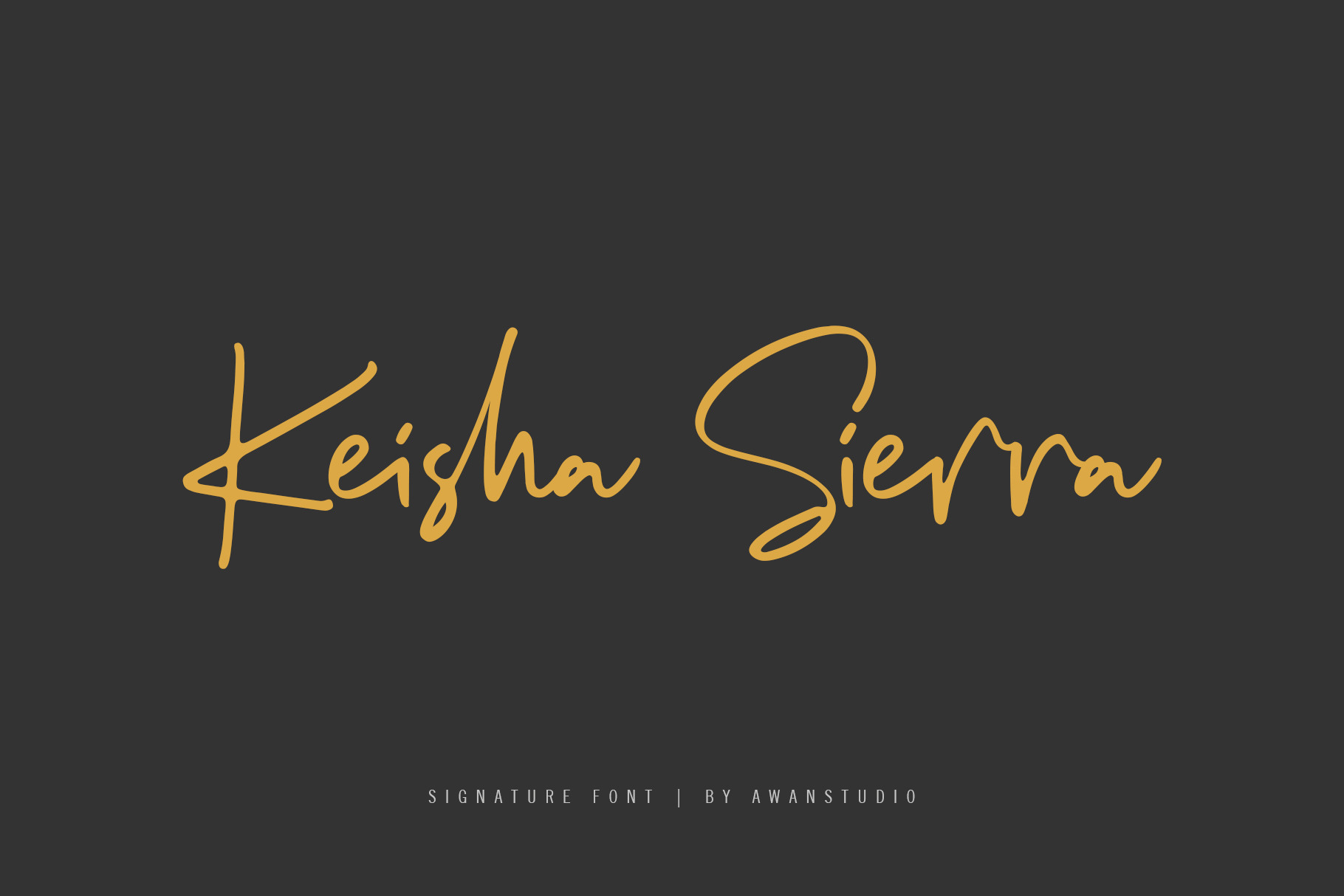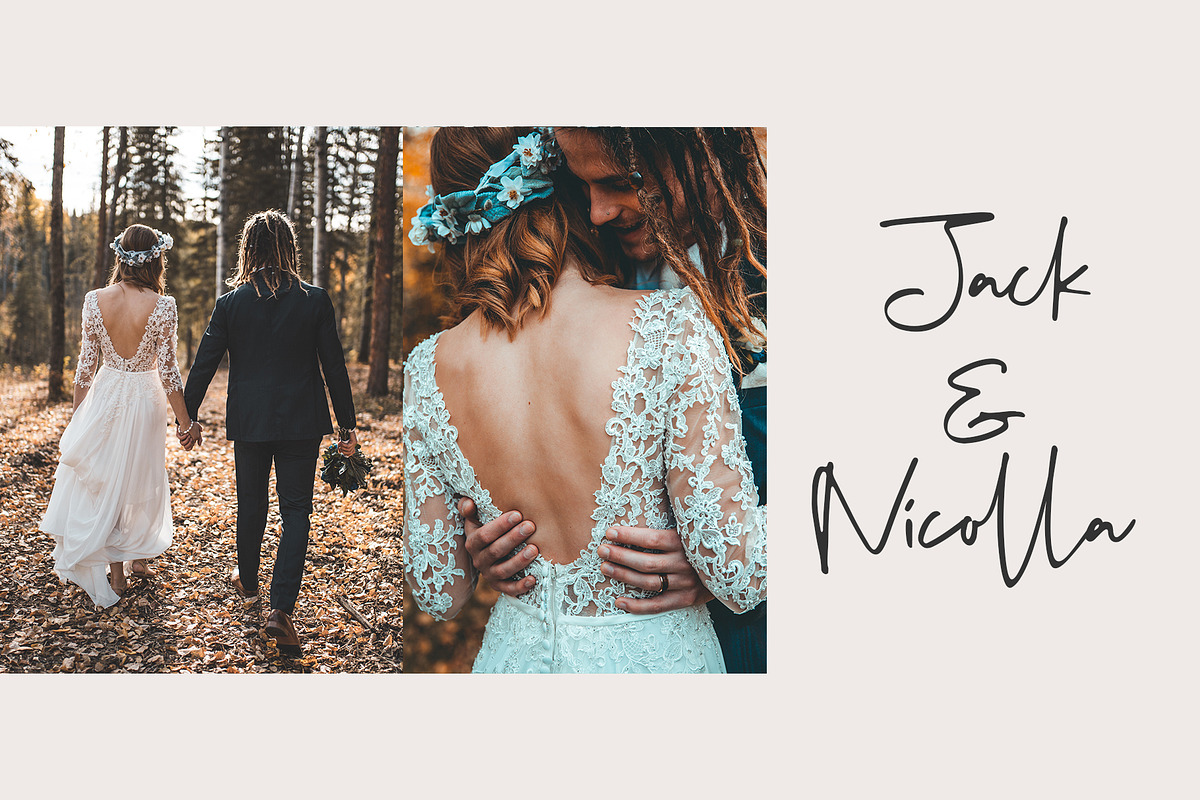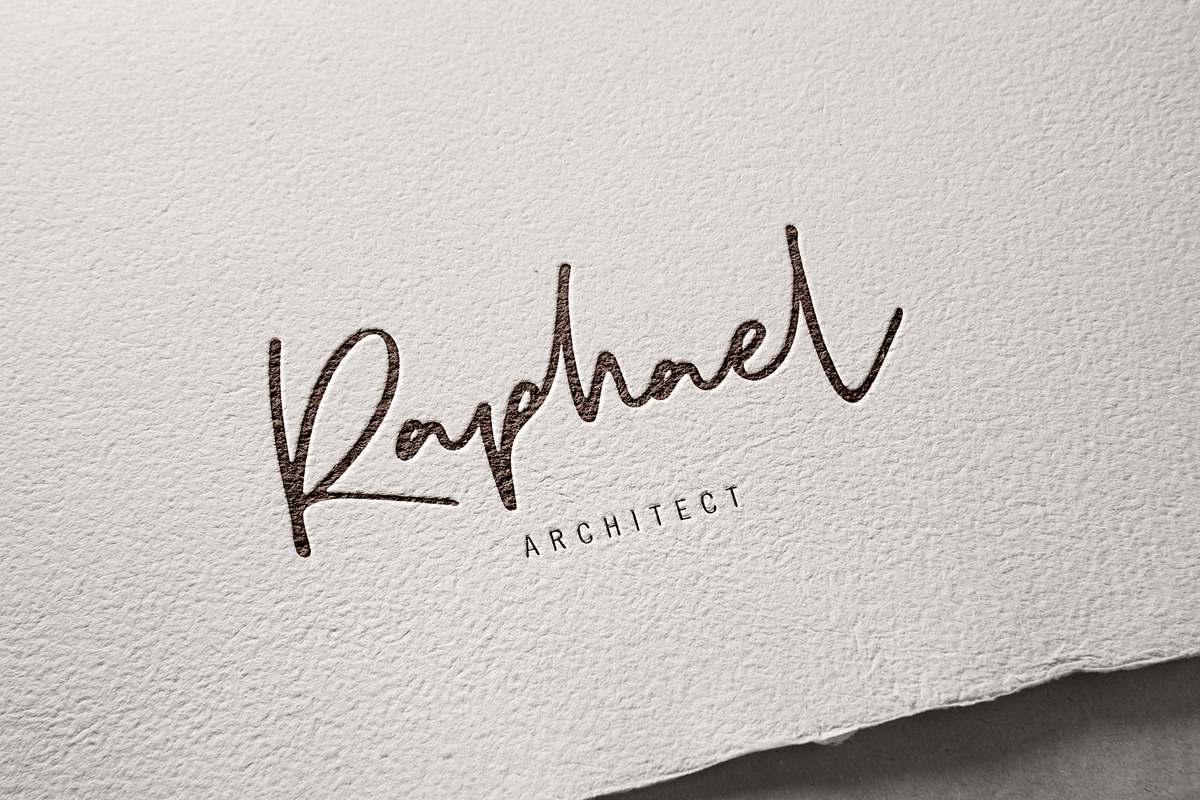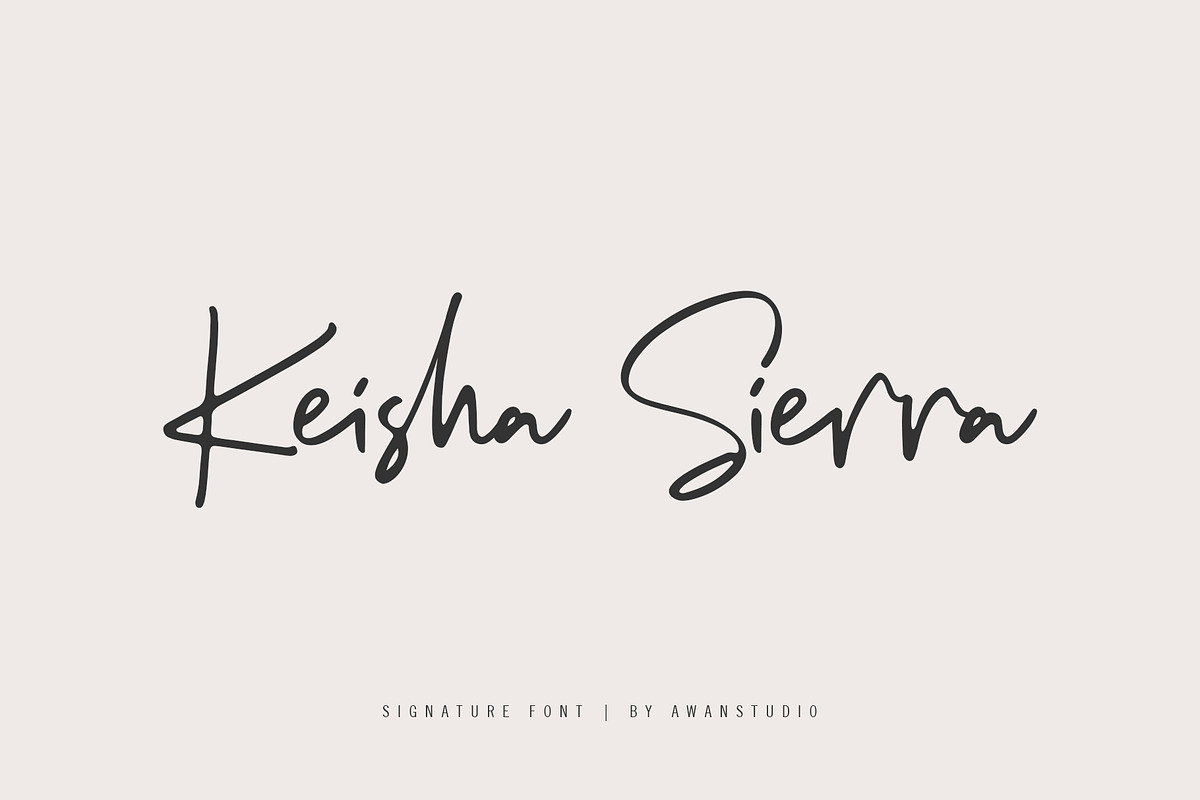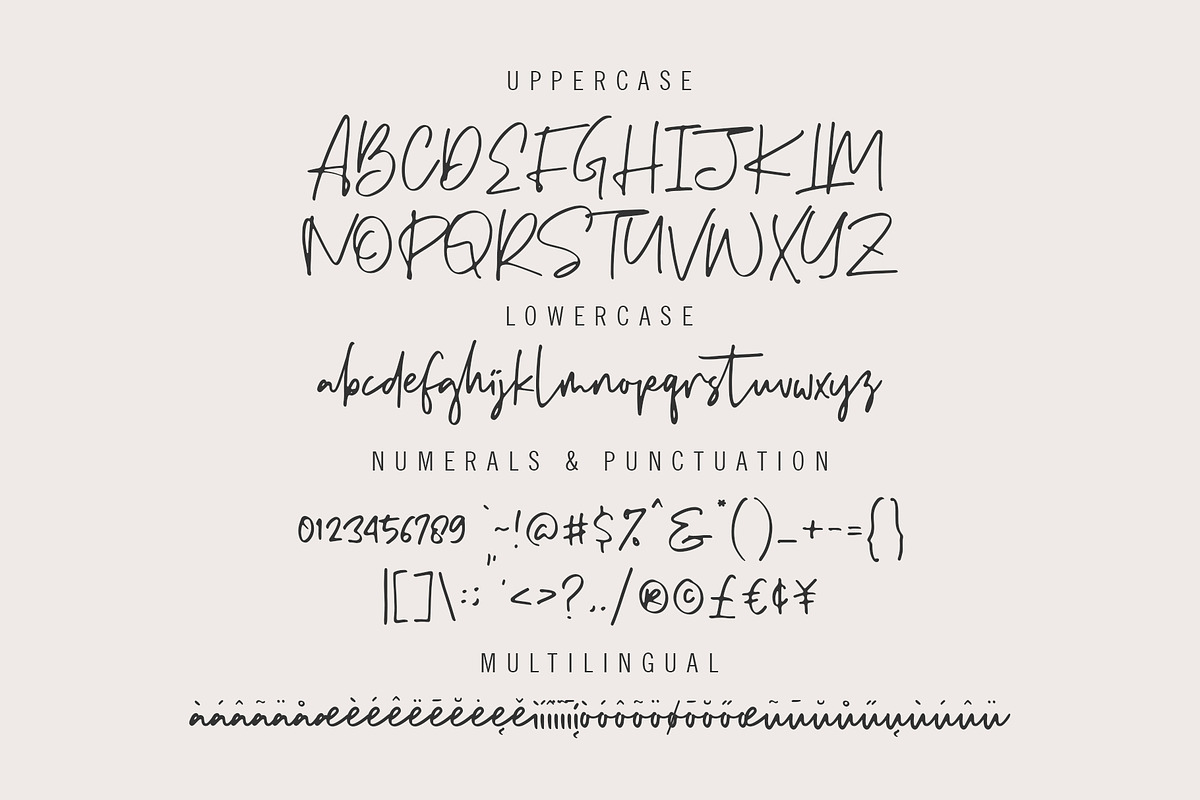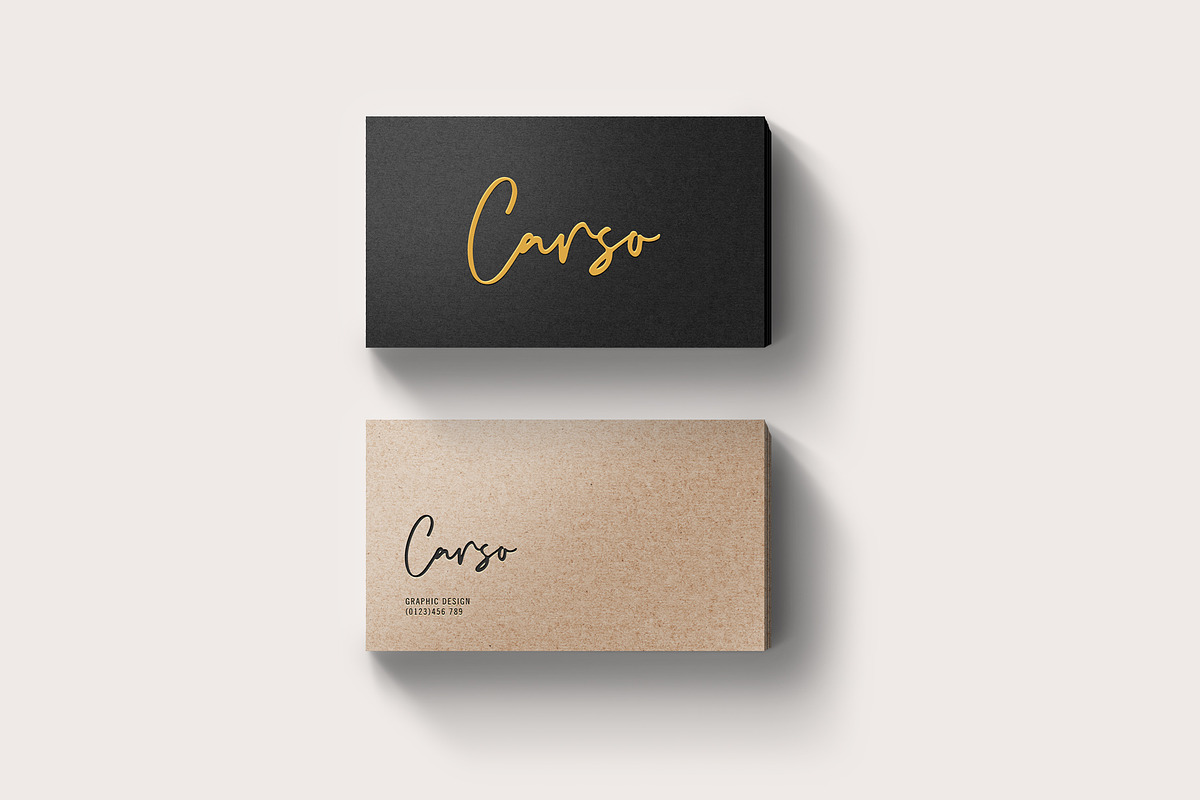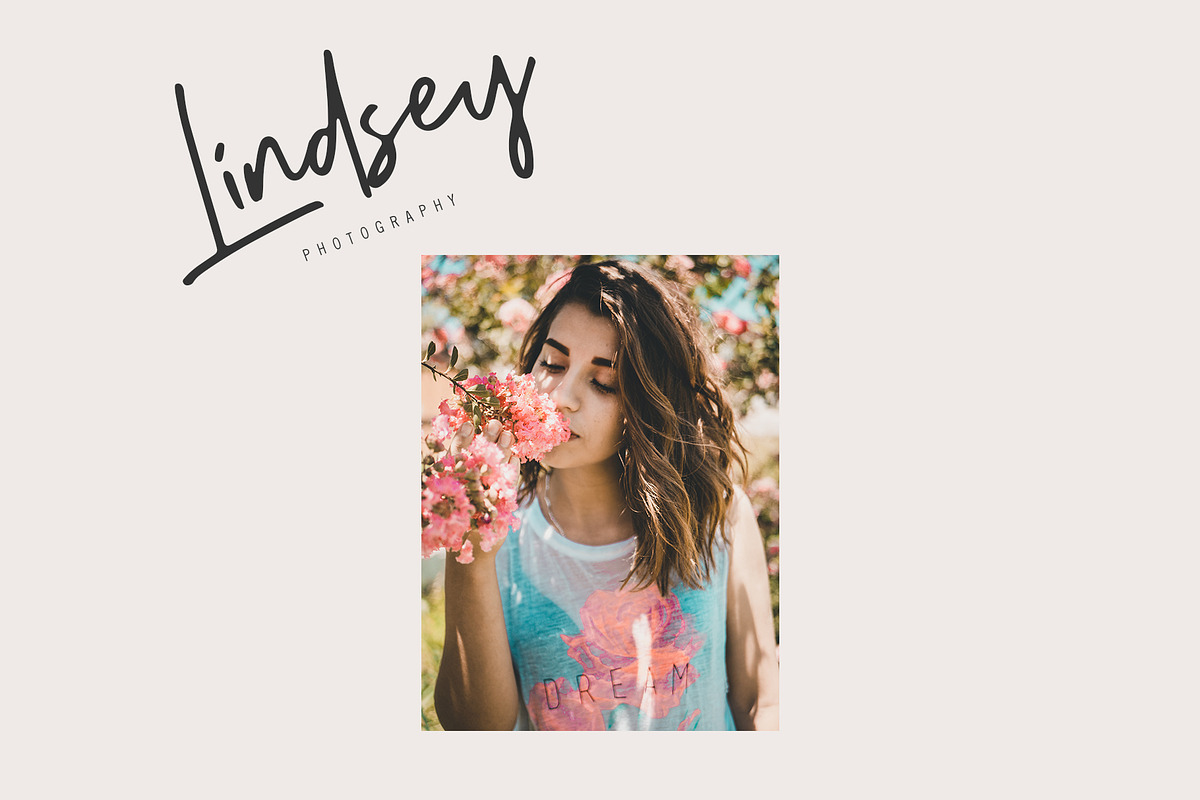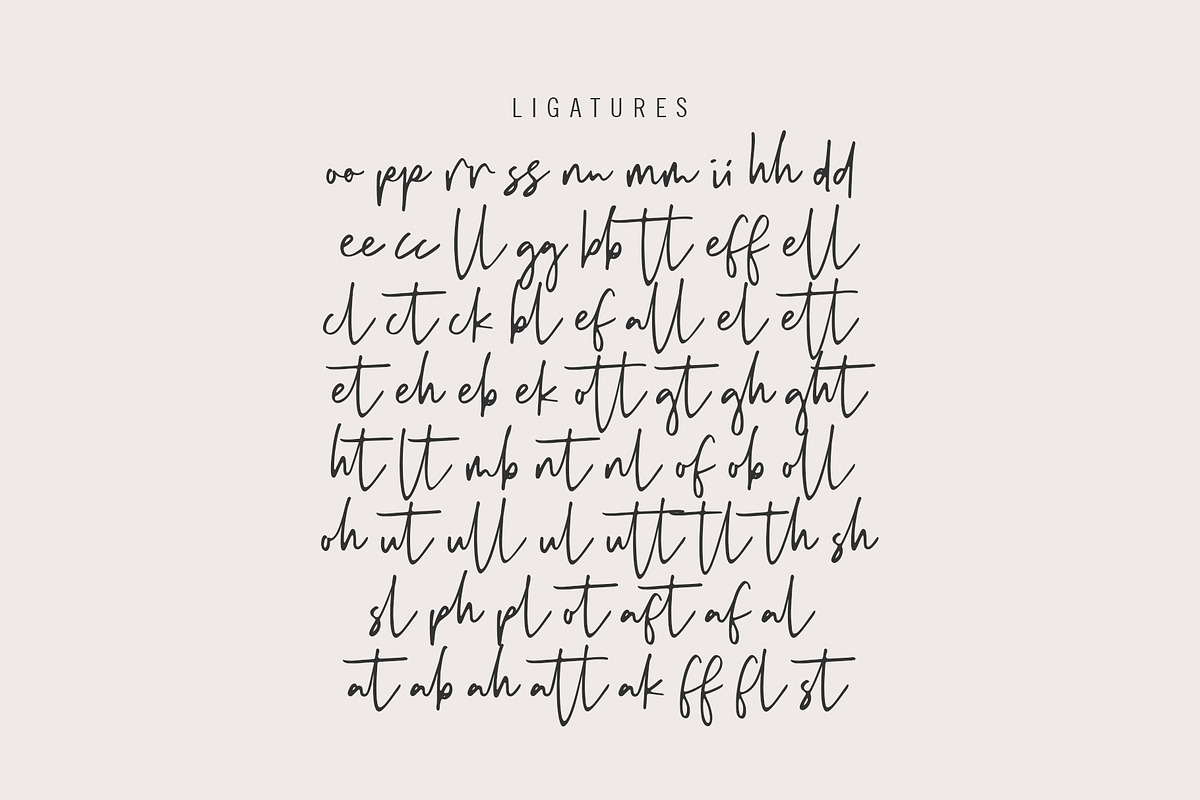
Keisha Sierra | Signature Font
Introducing Keisha Sierra signature font! It allows you to create stunning and easy hand-lettering in an instant. Ideal for the logo, quotes, wedding, product label/packaging, fashion, letter, advertising, invitation, poster, merchandise, greeting cards, etc
- Multilanguage support